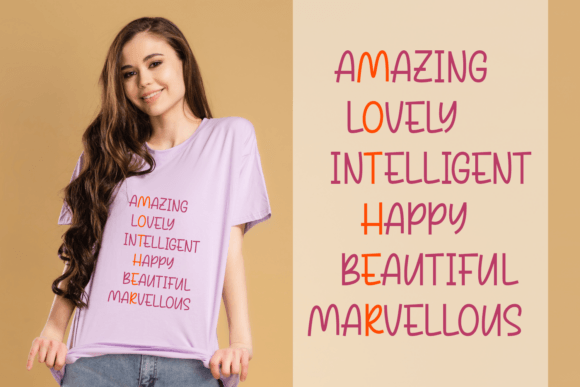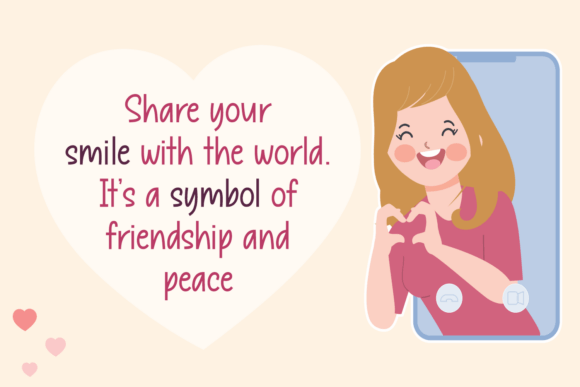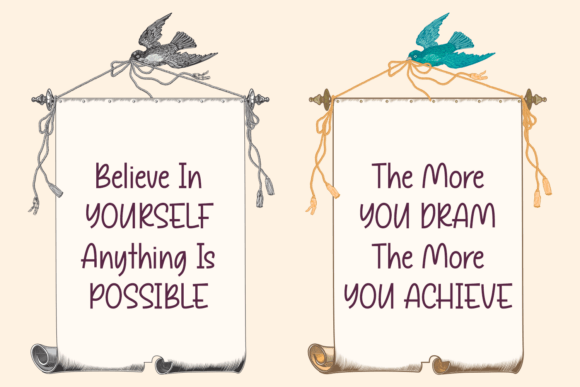
Introduction to Nothing Romantic Font
Have you ever found yourself scribbling down a heartfelt message on a worn-out notebook, the ink bleeding onto the page in a beautiful mess of imperfection? That’s exactly the kind of charm that the Nothing Romantic Font embodies. This modern handwritten font is a breath of fresh air for designers seeking a high-quality, free download that adds a touch of elegance and attitude to any creative project.
As a valuable design resource, the Nothing Romantic Font offers a level of authenticity that’s hard to replicate with more polished, traditional fonts. Its transparent background allows for seamless layering and manipulation, making it perfect for branding, quotes, and invitations. Whether you’re a seasoned designer or a hobbyist looking to elevate your personal projects, this font is sure to bring a touch of whimsy and personality to your work.
Key Features of Nothing Romantic Font
- High-quality design resource with a unique, modern aesthetic, perfect for creative projects that require a touch of elegance.
- Comes with a transparent background, allowing for seamless integration with various design elements and backgrounds.
- Features a clean and sophisticated design, ideal for use in various creative projects, from branding and marketing materials to digital art and graphics.
- Includes a comprehensive character set, featuring a wide range of letters, numbers, and symbols, making it an excellent choice for designers working on complex creative projects.
Honest Review: Nothing Romantic Font
I recently stumbled upon the Nothing Romantic Font while searching for a design resource for a creative project. The font immediately caught my attention with its unique and quirky design.
What works well: ✨ The Nothing Romantic Font has a transparent background, making it perfect for projects where you need to layer multiple elements. The font is also highly customizable, allowing you to adjust the size, color, and style to fit your design needs. The font is also available for free download, which is a huge plus for designers on a budget.
Here are some of its key features:
- Unique and quirky design
Limitations: ⚠️ The font is not suitable for all types of projects, particularly those that require a more formal or traditional look. Additionally, some users may find the font’s design to be too quirky or unusual.
Overall, I’m really impressed with the Nothing Romantic Font. Its unique design and high level of customization make it a valuable resource for designers looking to add some personality to their creative projects. I would definitely recommend it for anyone looking for a high-quality design resource.
How to Use Nothing Romantic Font
The Nothing Romantic Font is a high-quality design resource ideal for creative projects that require a unique touch. It’s available for free download, making it a great addition to any design collection.
Getting the Most Out of the Font
To get the most out of the Nothing Romantic Font, try using it with a transparent background to create a subtle, yet effective design. Experiment with different font sizes and colors to find the perfect combination for your project.
The Nothing Romantic Font is ideal for a range of creative projects, including:
- Blog post headers
- Business card designs
Alternatives to Nothing Romantic Font
Great Vibes Font is a high-quality, elegant script font that’s perfect for creative projects, such as wedding invitations, menus, or posters. It features a transparent background and is ideal for designers who want to add a touch of sophistication to their designs.